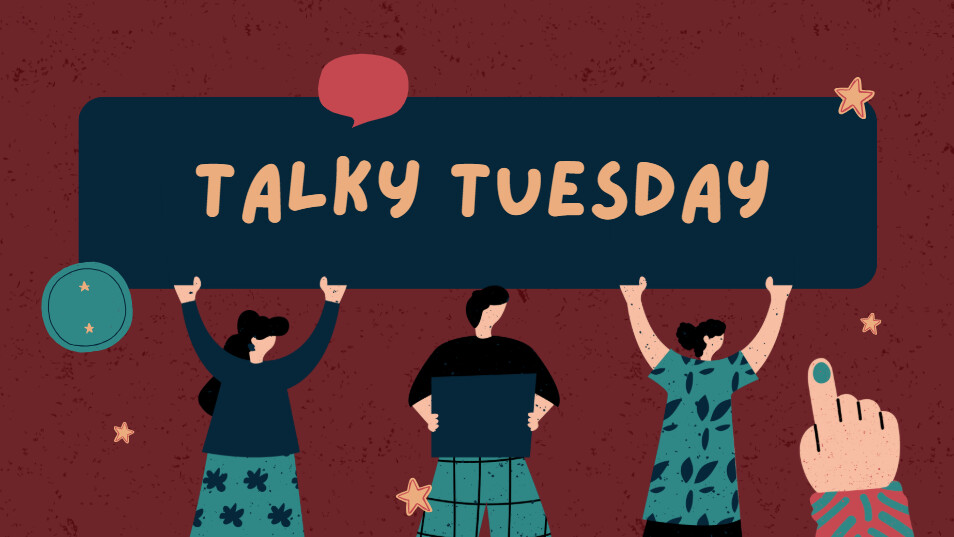
It’s Tuesday again, so let’s open up another craft-life chat.
Fonts are one of those small choices that totally shape the mood of a project.
Some people love bold, chunky lettering that stands out right away.
Others prefer thin, delicate fonts that look soft and detailed.
And sometimes different projects just ask for different vibes — cute fonts for kids, elegant fonts for weddings, playful ones for gifts, clean ones for labels.
Also, a tiny fun fact from my side:
the font we use on our Talky Tuesday posters is actually called Lazydog lol.
It just felt fun and friendly enough for these weekly chats.
So I’m curious:
What kind of fonts do you find yourself using the most? Do you match certain fonts with certain types of projects? Do you have any little “font rules” you follow… or happily break?
this is such a pain for me hahaha… so many options and often times it takes me hours just to pick a font I like… I am yet to pick a font for my brand until now… it has been in my to do list for so long…
I think about the theme and project that I am doing. will I be cutting vinyl? or just printed project? those influce my choice in fonts
Fonts… we all have a love–hate relationship with them! I definitely match different fonts to different projects — but each craft brings its own little adventures.
Embroidery fonts are the trickiest for me. Taking a chance on a new one and hoping it stitches out right is always a gamble. When you find a digitizer who makes clean, dependable fonts… you hang on tight!
Crafting fonts are usually fun — until you run into Mr. Boney, the font that refuses to weed. And of course you only discover that after you’ve pressed it.
Laser fonts might be my favorite, but the more delicate the better… until the sander gets involved. I love those handwritten styles, but they do not love being sanded. Nothing like breaking a piece right at the end and having to burn another one!
Fonts definitely keep things interesting — and I’m always learning which rules to follow and which ones to break!
I agree with @prinsesaian and @timmytation—it can take forever to land on the perfect font(s) for a project. I’m a total font lover, but sometimes I’ll spend days just narrowing down the right ones. I tend to pair bold serif fonts with thin sans serif fonts, or mix thin scripts with bold sans serifs for contrast. And I have to admit—I’m obsessed with drip fonts and any style that has real personality.
Decorative fonts are definitely my favorite, but I’ve learned to balance beauty with practicality. Some intricate designs look amazing on screen but can be a nightmare to cut on a machine, so I always test and choose fonts that I know will cut cleanly without issues. For me, it’s all about finding that sweet spot between style and functionality—fonts that make a design pop while still being maker-friendly.
I lean toward the edgy fonts that make a bold statement. I have maybe a half dozen that are my go-to’s but will use others, depending on the project and how it needs to be constructed.
Me too. It takes me hours to choose the right ones. There is a girl in TT (I think) that does the font pairs. I screenshot them. But of course then I forget when I’m doing a project.
My suffering with scripted fonts…
The problem with fonts is it makes you ADDICTED you can’t have enough and the more you have the long time it needs to choose
And the problem also is not choosing a beautiful font but choosing the font that a specific initial looks good at. Some fonts are really pretty but the S looks like an alien some fonts are so pretty but they write the m, n as small letters.
My biggest problem is the I and J in most scripted fonts they look identical and the customer says that’s not an I and I am like uhhhh
And then there is the Y which also is written as a small letter which made me have a fight with a customer and ended up filming videos to show her that no matter how I type it on the keyboard and even when Caps lock is on it is still written as a small letter and then I told her please don’t order from me again and she bacame a regular customer lol​:rofl:
I go to some that are bold or Sami bold the most I like some of the more fun fonts that have a boldness to them cause they cut and show more. Finding. Cursive like one can take a bit sometimes it’s depending on what the project is but I will try 3 fonts and see what I feel fits for what I am making usually.